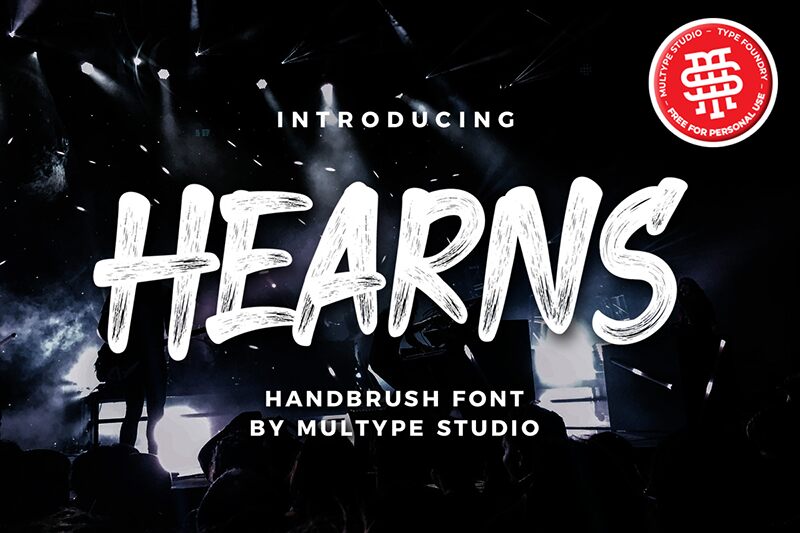
Hearns, from Multype Studio, is a brush-style font that exudes creativity and energy. With its textured strokes and dynamic flair, this typeface captures the spontaneity of hand-painted letters, making each character burst with individuality. The boldness of Hearns conveys a sense of confidence and strength, perfect for projects that require a touch of human warmth and vigor.
This font's aesthetic appeal lies in its ability to bring an artisanal charm to any design. Its use is ideal for branding materials, eye-catching headlines, or any artistic endeavor seeking to make a strong visual statement. Hearns' handcrafted quality also makes it well-suited for illustrations, apparel designs, and expressive advertising campaigns where personality is key.